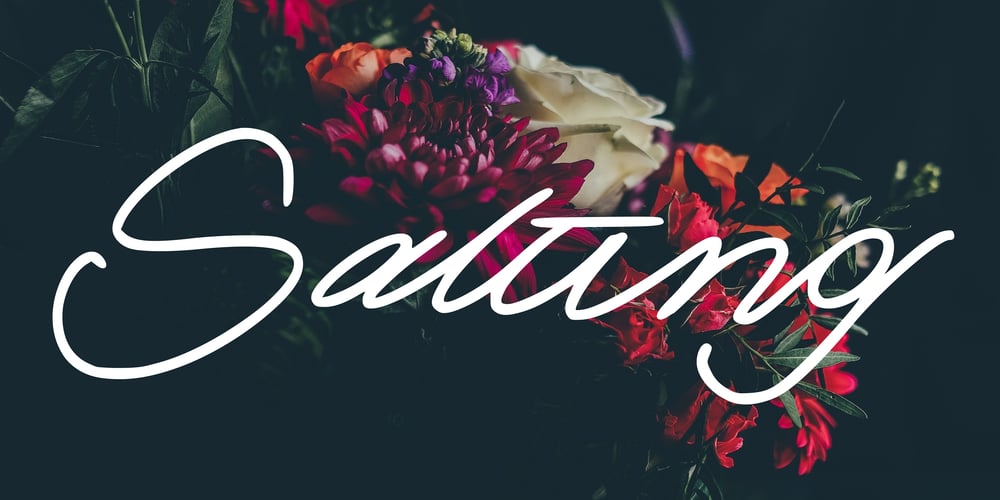
Salting Font Family was designed by Mariyana and published by Goodigital13. Salting contains 1 styles and family package options. Suitable for design, element design, wedding, event, t-shirt, logo, badges, sticker, and awesome work, etc…This font is suitable for use on business cards, weddings, t-shirt designs, logos, magazines, quotes, fashion, watermarks, invitations, signatures.